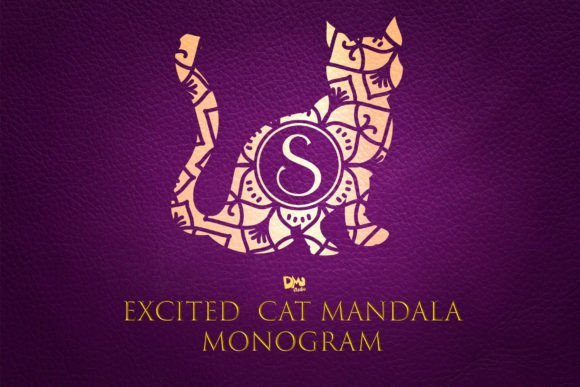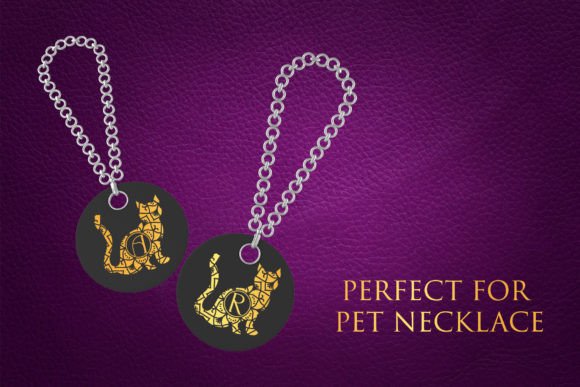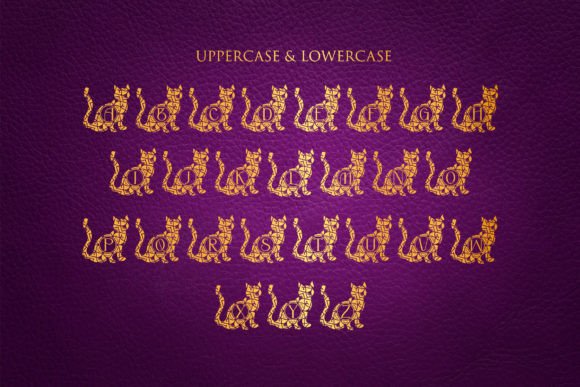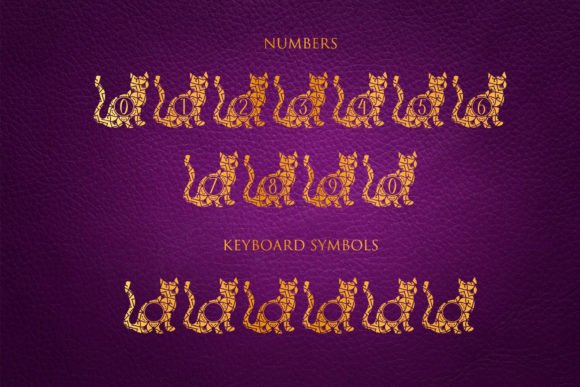
The Purrfect Font for Feline Fanatics
Have you ever stared at a blank canvas, watching as your creativity slowly begins to unfold? The blank page, a fresh sheet of paper, or an empty digital screen – it’s a familiar feeling for designers and artists alike. But what if that blank space could be filled with the cutest, most adorable thing in the world? Enter the Excited Cat Mandala Monogram Font, a whimsical and playful typeface that’s sure to bring a smile to the faces of cat lovers everywhere.
This charming font is designed to add a touch of feline flair to any creative project, from cat-themed greeting cards to social media graphics and more. Whether you’re a seasoned designer or a hobbyist looking to add some personality to your work, the Excited Cat Mandala Monogram Font is a valuable addition to your toolkit. With its intricate mandala patterns and adorable cat motifs, this font is sure to bring a new level of excitement to your designs.
Excited Cat Mandala Monogram Font Key Features
- Font Style: A unique, hand-drawn monogram font featuring an excited cat mandala design, perfect for adding a playful touch to your designs.
- Characters: Includes uppercase and lowercase letters, numbers, punctuation, and special characters, making it a comprehensive font for various design needs.
- Unique Characteristics: The font’s excited cat mandala design adds a whimsical and eye-catching element to your designs, perfect for creative projects, social media, and marketing materials.
Designer Review: Excited Cat Mandala Monogram Font
Overall, I was excited to dive into the “Excited Cat Mandala Monogram Font” and see what it had to offer. ✨ Upon initial inspection, the font’s playful and whimsical vibe immediately caught my attention. The combination of cat and mandala elements adds a unique twist to the classic monogram design.
- The font’s versatility: It can be used for a variety of projects, from invitations to merchandise.
- The attention to detail: The intricate cat and mandala designs are beautifully crafted and add a touch of elegance.
- The uniqueness: This font stands out from more traditional monogram fonts and is sure to grab attention.
However, there are a few limitations to consider. ⚠️ The font may be too busy for some projects, and the cat and mandala elements may not be to everyone’s taste. Additionally, the font’s size and scaling can be a bit inconsistent, which may require some additional tweaking in certain design contexts.
While the “Excited Cat Mandala Monogram Font” may not be the best fit for every project, it’s certainly a unique and eye-catching option. With some careful consideration and planning, this font can be a great addition to any designer’s toolkit.
Experiment with different font sizes, colors, and arrangements to create unique designs.
Combine the Excited Cat Mandala Monogram Font with other fonts or graphics for added visual interest.
Use the font for personal projects, such as invitations, party decorations, or social media graphics.
Celebratory events, such as birthdays, weddings, or graduations.
Party decorations, invitations, and other event materials.